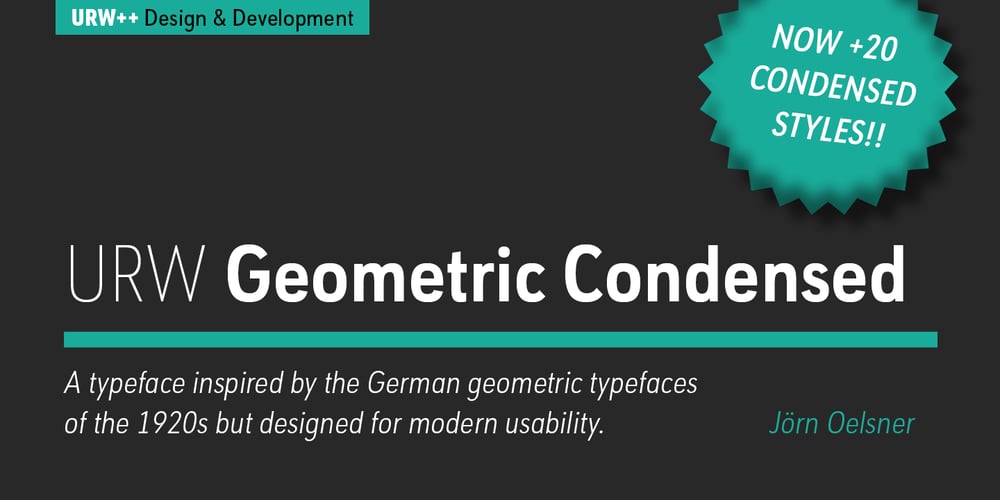
URW Geometric Condensed Font Family was designed by Jörn Oelsner and published by URW Type Foundry. URW Geometric Condensed contains 20 styles and family package options. URW Geometric Condensed is the matching complement for the URW Geometric. Including 20 additional condensed styles the URW Geometric Condensed is the space-saving alternative in the URW Geometric family. URW Geometric is a sans serif typeface inspired by the German geometric typefaces of the 1920s but designed for modern usability. The character shapes have optimized proportions and an improved balance, the x-height is increased, ascenders and descenders are decreased. Special glyphs, which are often designed afterwards for the original geometric typefaces from the 1920s, are perfectly integrated in the URW Geometric. These design characteristics increase the usability and legibility tremendously. With its 10 weights ranging from Thin to Black, plus 10 additional oblique styles, it has a great versatility in mind. The extreme light styles shine bright in large sizes, the middle weights are perfect for body copy and the bolder variants for the use of emphasis information or bring a strong impact to headlines and information. The optically balanced styles are designed to work in perfect harmony together. URW Geometric is functional, strong, simple and harmonized in form, and at a glance appears as a modern variant of its predecessors. Apart from the basic characters the design has an extra focus on the special glyphs. These are designed for today’s needs. For example: the email glyph looks modern and unique, including a perfectly balanced spacing. The number sign, in modern use called “hashtag”, is space saving and optically balanced for body text. Additionally, various extra and alternate glyphs are designed to provide a friendly usability. Including a wide Latin language support and character sets, URW Geometric is perfectly designed for today’s requirements. Please have a look at the URW Geometric Type Specimen (PDF) for further information.